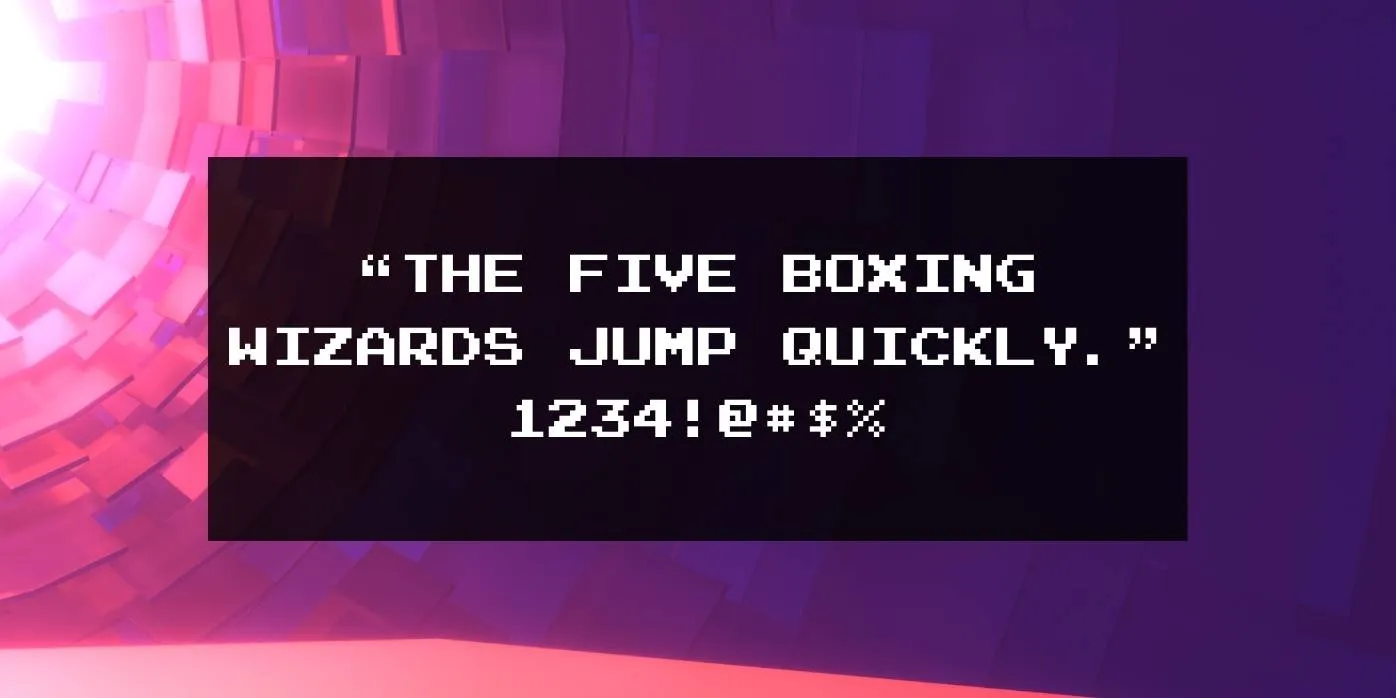
Arcade Font
In this post, we introduce Arcade Font which belongs to the category of Techno font. Yuji Adachi is the main designer of this family. The family contains 4 styles: Regular, Bold, Italic, and Bold Italic. The number of glyphs for each style is 266.
This font is perfect for headlines, games, posters, and other displays. It is also a great choice for those who are looking for a techno font with a futuristic touch. It is not included in google fonts. This family is best for HTML.